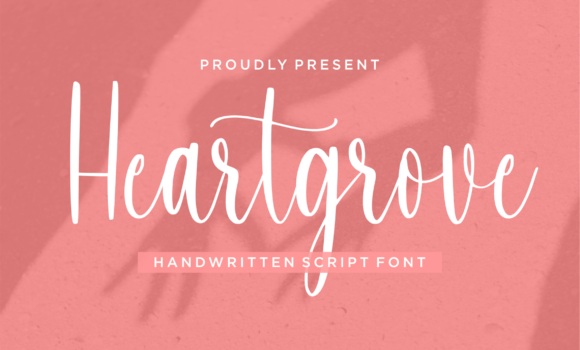
heartgrove
Heartgrove Font – Free Download Introduction to Heartgrove Font Heartgrove feels playfully handmade and delivers an incredibly playful handwritten font. 📸 Preview Gallery 6 images 📌 Product Name Heartgrove Font 👤 Author qwrtypefoundry 📂 Category Explore ⬇️ Download Heartgrove Font